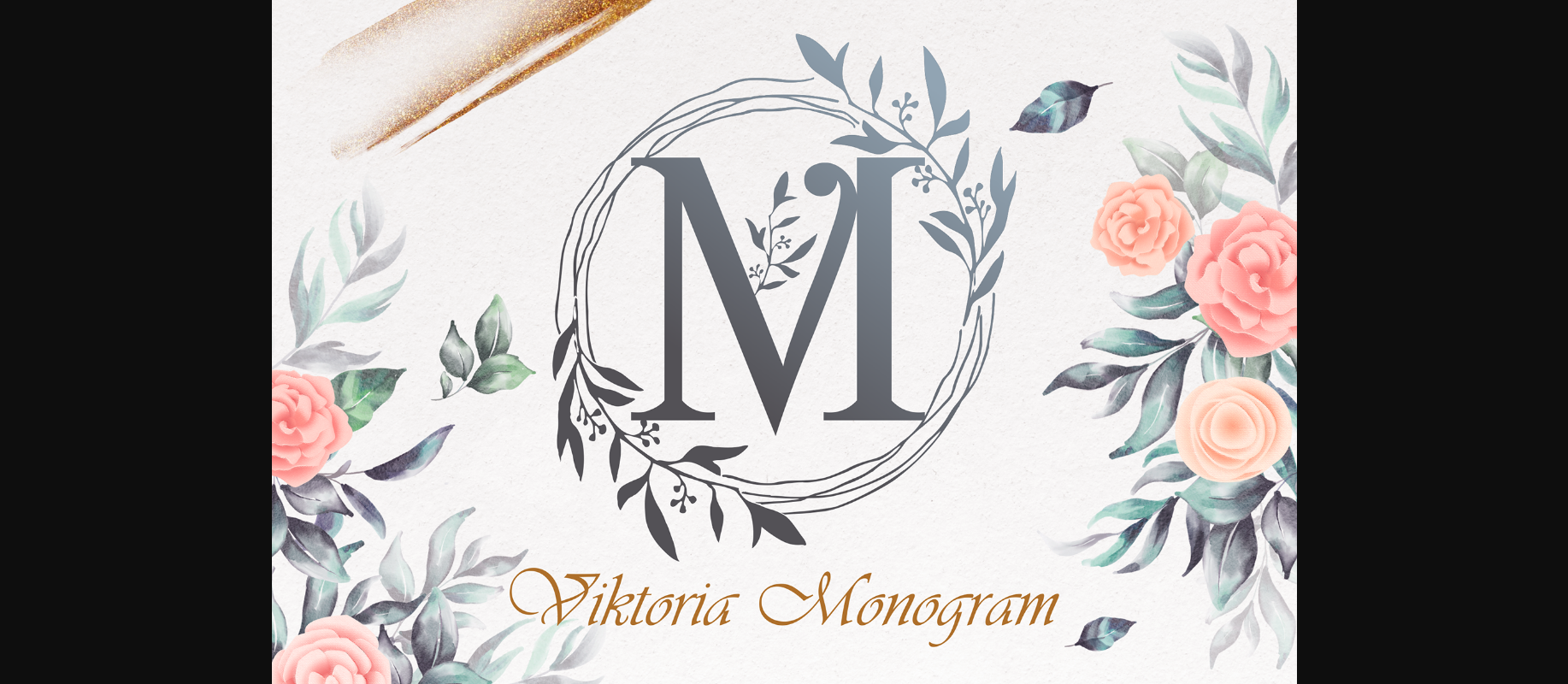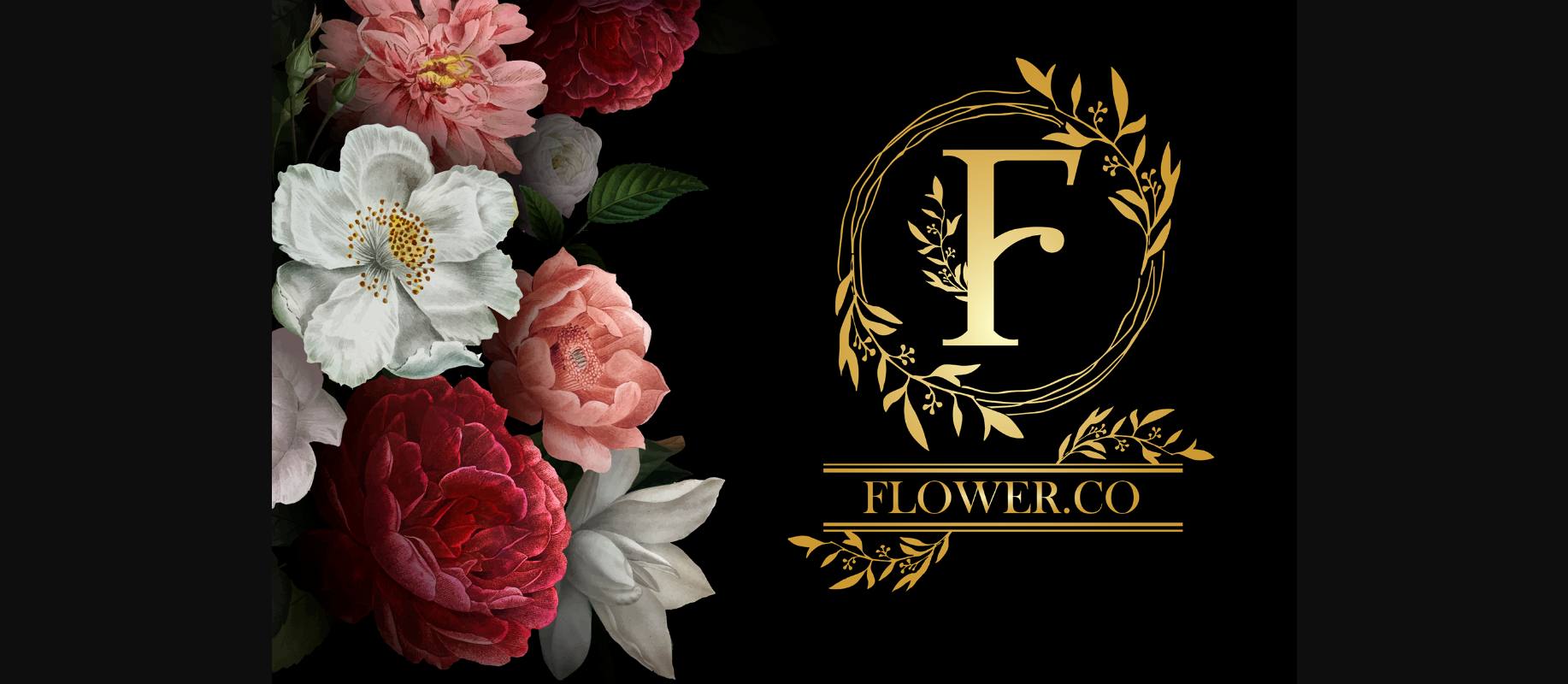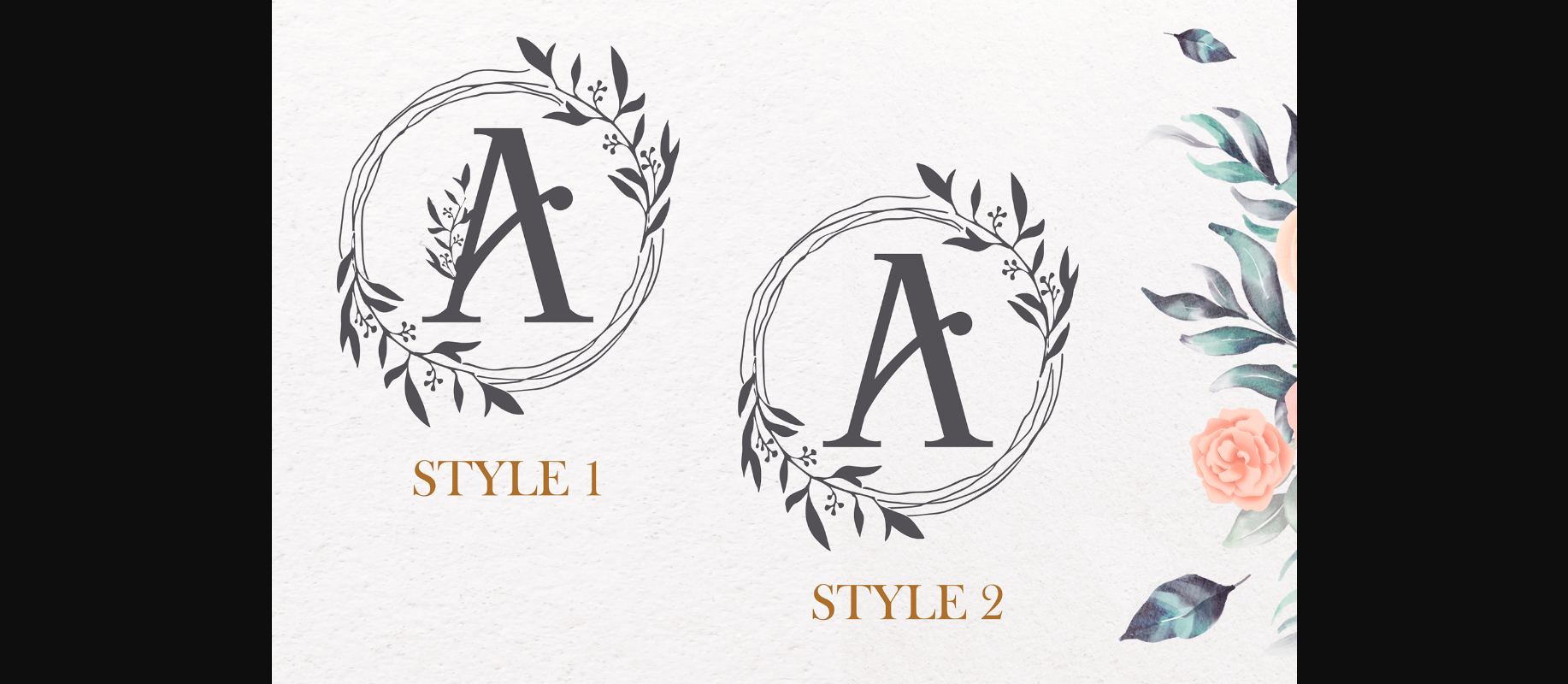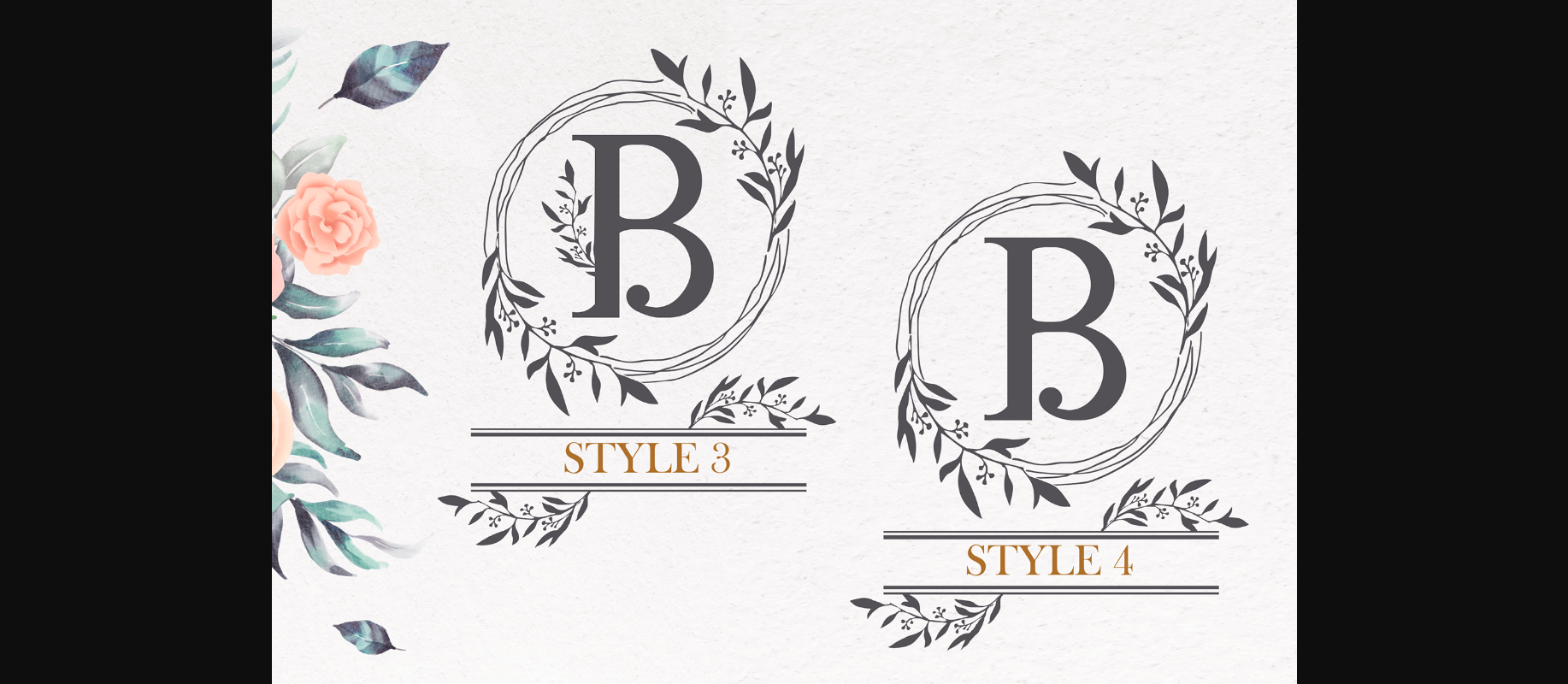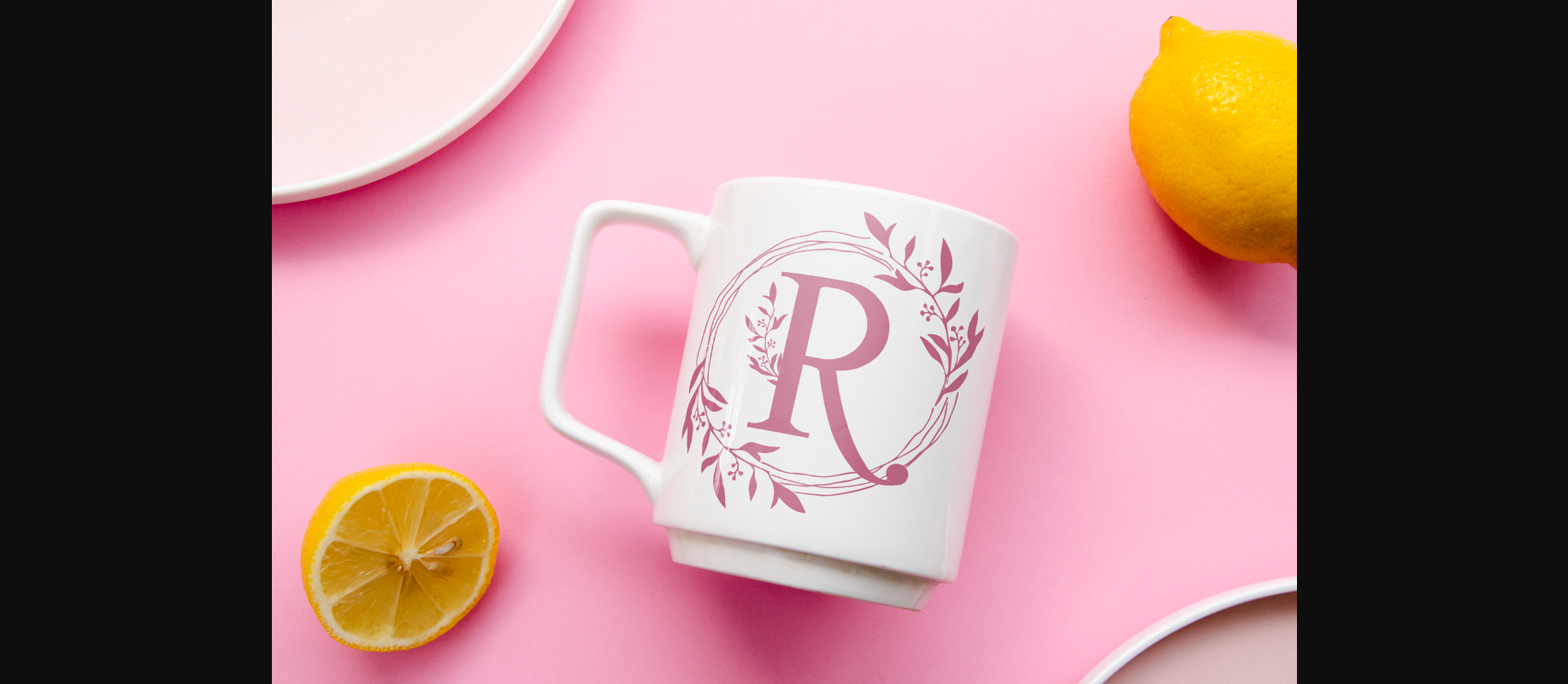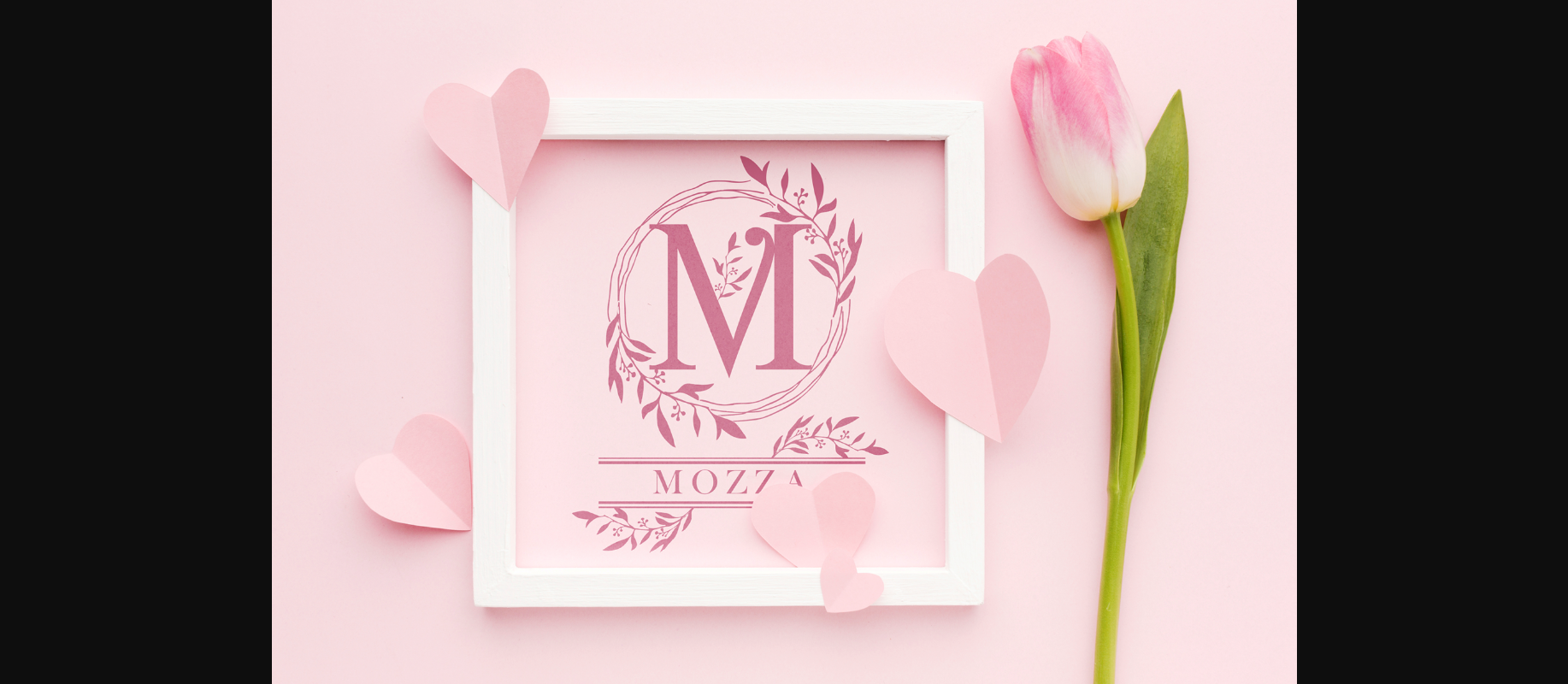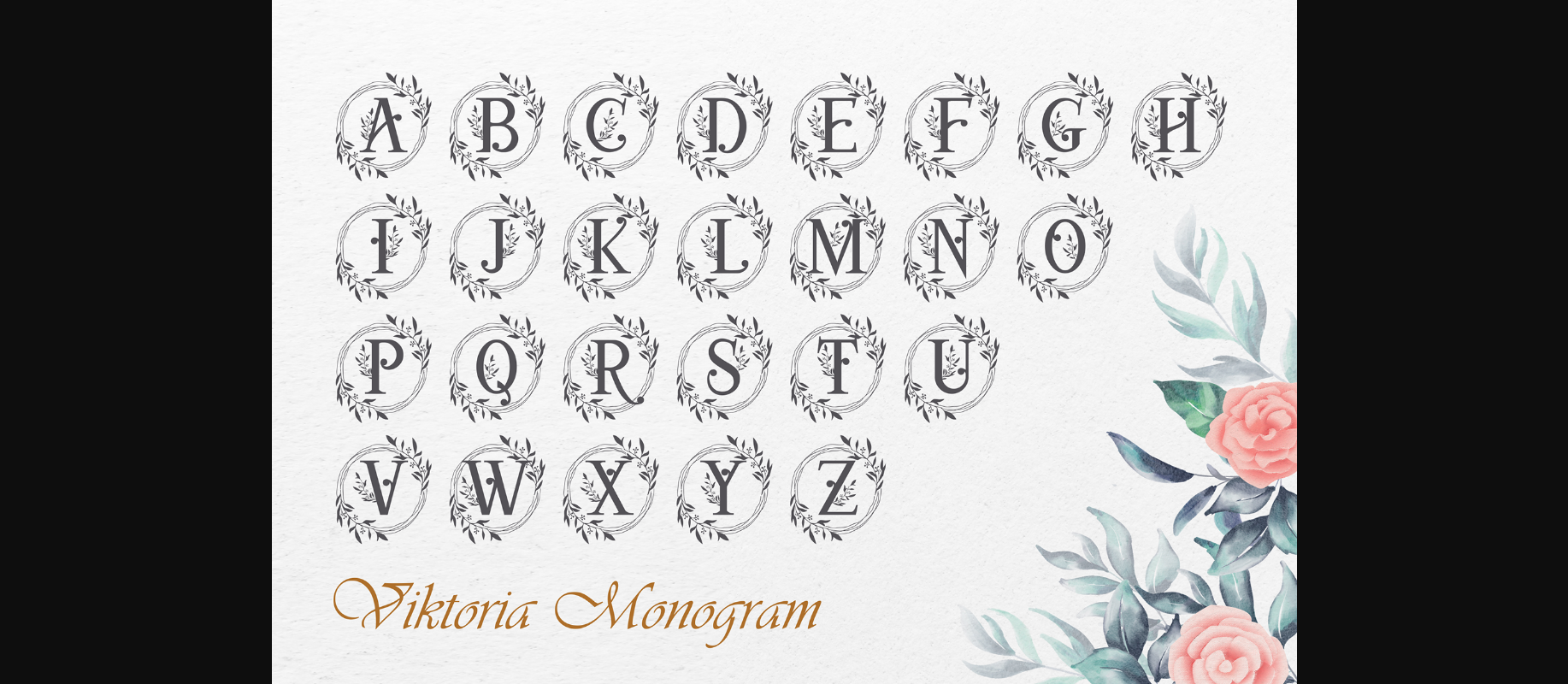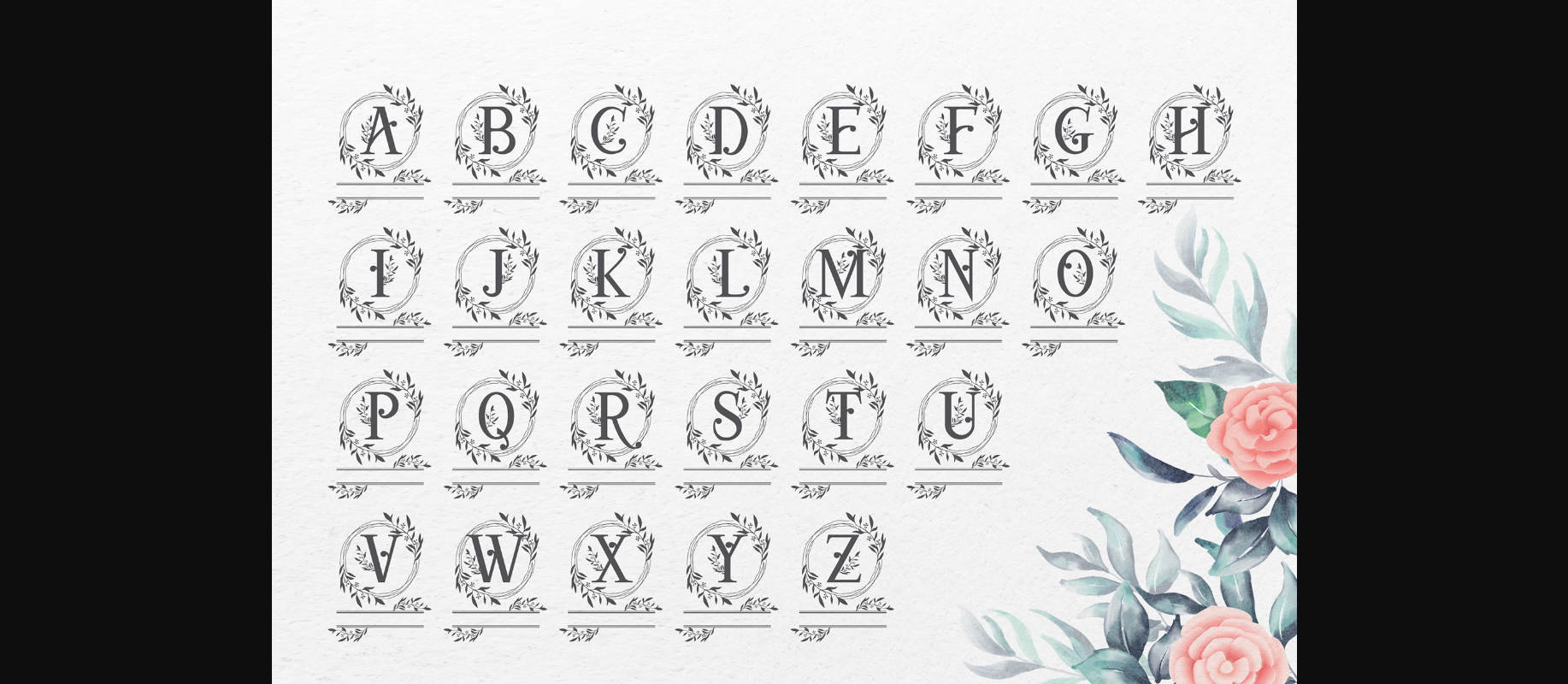
Viktoria Monogram Font Font
About Viktoria Monogram Font
Viktoria Monogram is a delicate and stylish decorative font. No matter the topic, this font will be an incredibly asset to your fonts’ library, as it has the potential to elevate any creation.